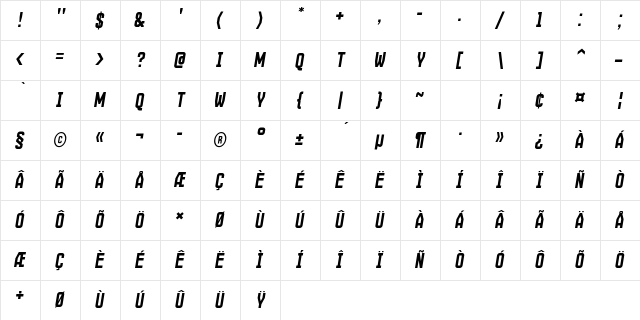
Martius Italic
Foundry: GGBotNet
Designer: GGBotNet
Martius Family
Design Context for Martius
Martius is a composed and adaptable typeface that performs quietly and consistently across a wide range of design contexts. The slanted form adds forward momentum and visual energy.
Pro Tip: Use Martius for emphasis, pull quotes, and subheadings where its slanted energy can add rhythm to the layout.